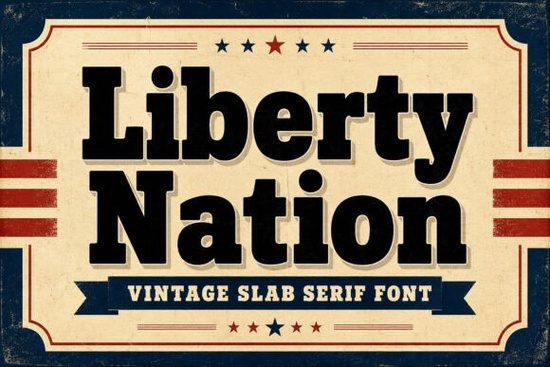
If you're working on a design that needs to feel bold, historic, and unmistakably American think Fourth of July posters, craft brewery labels, or veteran tribute graphics you’ll want a typeface with presence. That’s where Liberty Nation Font comes in. It’s a vintage slab serif built with extra-chunky block letterforms, subtle calligraphic tapers, and sharp terminal serifs that echo mid-century letterpress printing. What really sets it apart is the organic woodblock ink texture baked right into each character, giving your headlines an instant sense of authenticity without needing extra effects.
This font isn’t just about looks it’s engineered for impact. The built-in drop shadow adds depth and legibility, even at large sizes, making it ideal for banners, packaging, and apparel where clarity and character matter. Whether you’re designing for a local parade, a small-batch whiskey label, or a retro T-shirt line, Liberty Nation delivers a confident, time-honored aesthetic that resonates with audiences who appreciate craftsmanship and tradition.
What kinds of projects work best with Liberty Nation?
Because of its strong visual weight and nostalgic texture, this font shines in contexts where heritage, patriotism, or rustic charm are central themes. Here are a few natural fits:
- Patriotic event materials: Flyers, social graphics, and signage for Independence Day, Memorial Day, or Veterans Day events.
- Craft beverage branding: Labels for local breweries, distilleries, or coffee roasters aiming for a handcrafted, Americana vibe.
- Print-on-demand apparel: Vintage-style T-shirts, hoodies, or mugs featuring quotes, slogans, or historical references.
- Community promotions: Posters for town fairs, historical reenactments, or Main Street business campaigns.
- Honor and memorial designs: Custom certificates, thank-you cards, or digital tributes for service members and first responders.
It’s worth noting that Liberty Nation works best as a display font meaning it’s perfect for headlines, logos, and short phrases, but not ideal for body text. Pair it with a clean, neutral sans-serif (like Montserrat or Lato) to keep your layout balanced and readable.
How does it compare to other slab serifs?
Not all slab serifs carry the same mood. While fonts like Old Typewriter lean into mechanical nostalgia with uneven baselines and typewriter quirks, Liberty Nation feels more structured and monumental closer to engraved signage than office stationery. Similarly, Loved Font offers a softer, rounded take on the slab style, great for friendly or romantic themes, whereas Liberty Nation stands firm with authority and grit.
If you’ve used classic American wood-type fonts before, you’ll recognize Liberty Nation’s spirit but with modern vector precision and ready-to-use texture. You don’t need to layer brushes or add shadows manually; it’s all built in, saving you time while keeping your design cohesive.
Tips for using Liberty Nation effectively
To get the most out of this font, keep these practical pointers in mind:
- Avoid overcrowding: Give each letter room to breathe. Tight kerning can muddy the textured details.
- Use high-resolution outputs: The ink texture shows best in print or large digital formats (like posters or storefront signs), not tiny web buttons.
- Limit color complexity: Stick to 1–2 colors max. Deep reds, navy blues, forest greens, or classic black on cream paper amplify its vintage appeal.
- Don’t pair with competing display fonts: Let Liberty Nation be the star. A simple supporting font keeps focus where it belongs.
And remember: because it includes a drop shadow, test your design on both light and dark backgrounds to ensure contrast and readability especially if you’re creating digital ads or social media visuals.
Ready to use Liberty Nation in your next project?
Before you download, ask yourself:
- Is my message aligned with themes of heritage, strength, or celebration?
- Will this be used primarily for headlines, logos, or short impactful text?
- Do I have a clean, complementary font ready for supporting text?
- Am I designing for print, large-format display, or high-quality digital output?